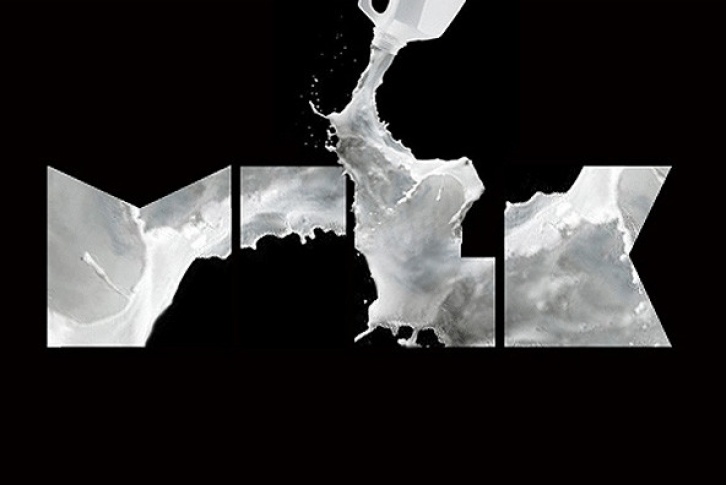
Prisma is a ultra-black typeface designed by Fontfabric. Designed to defy the limits of legibility it is also a journey into a universe of strange possibilities.